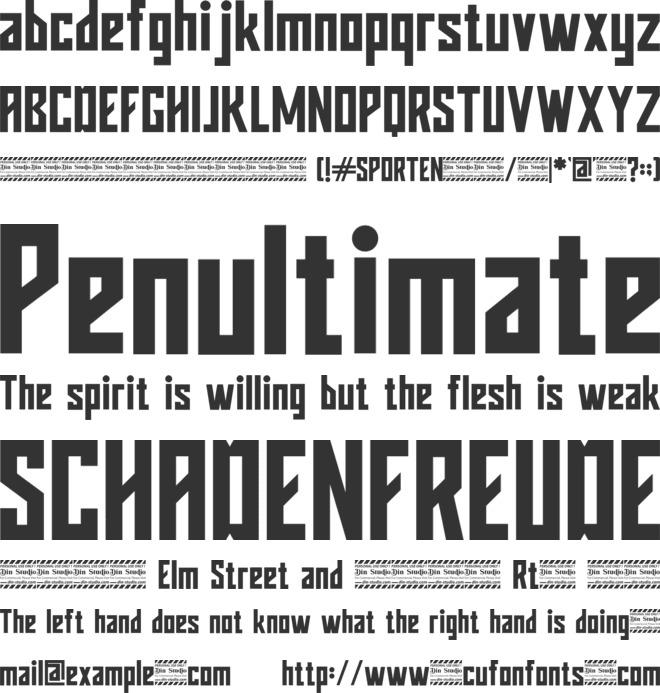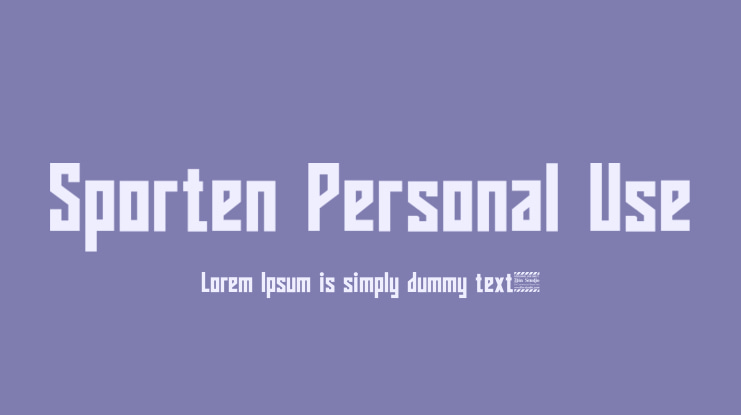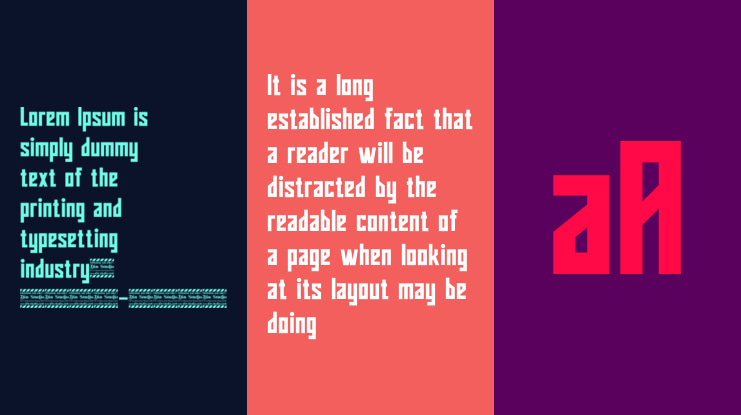
Sporten is a classic sport font. Made for any professional project especially that related to the sports.Beside that, this font can be used for printing, branding and quotes.